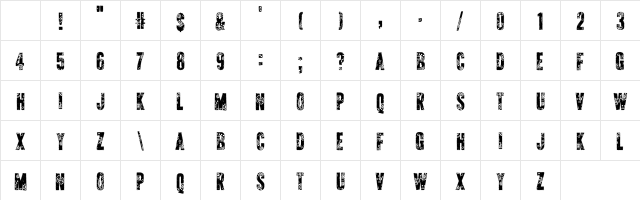
Complete AP Applique Stitched Regular glyph index. Displaying only characters natively supported by AP Applique Stitched Regular font.
AP Applique Stitched is a composed and adaptable typeface that performs quietly and consistently across a wide range of design contexts.